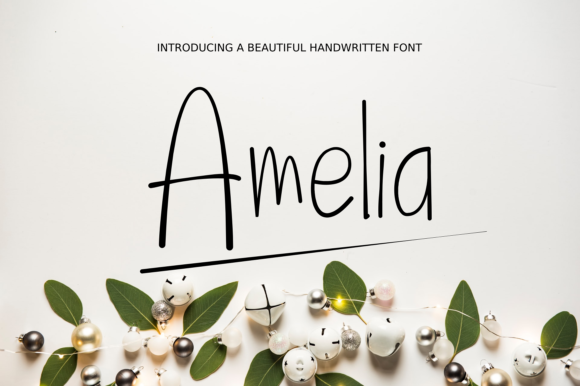
Discover the Perfect Handwritten Touch: Amelia Font
Have you ever stared at a blank page, struggling to find the right words to express your creativity? You know, that moment when you wish you could infuse your design with a dash of personality and style. Well, we’ve got the solution for you. Meet Amelia Font, a beautiful, modern handwritten font that’s about to take your designs to the next level.
With its clean, thin, and smooth vibe, Amelia Font is the perfect addition to any design project. Whether you’re working on a branding project, a blog post, or a social media campaign, this font will add a touch of elegance and sophistication to your work. And the best part? It’s incredibly versatile, making it a valuable asset for designers of all levels.
Amelia Font Key Features
- Unique Characteristics: Amelia Font features a modern, elegant design with a unique blend of geometric and organic elements, making it suitable for a wide range of applications, from branding to editorial design.
- Kerning and Ligatures: Amelia Font includes advanced kerning and ligature tables, ensuring that text sets up smoothly and looks professional, even at small font sizes.
Amelia Font Review
Overall, I’m quite pleased with Amelia Font. It has a lot of character and feels very feminine, which suits its name well. The font is highly customizable, making it a great choice for designers who want to add a personal touch to their projects.
Here are some of the things I like about Amelia Font:
- ✨ It has a beautiful, flowing script style that works well for titles and headings.
- ✨ The font is highly customizable, with a wide range of options for color, size, and style.
- ✨ It’s a great choice for feminine or vintage-inspired designs.
- ⚠️ The font may not be as readable at small sizes, due to its complex script style.
- ⚠️ It may not be the best choice for projects that require a more modern or minimalist aesthetic.
Overall, I think Amelia Font is a great choice for designers who want to add a touch of elegance and sophistication to their projects. While it may have some limitations, it’s a versatile and highly customizable font that can be used in a wide range of contexts.